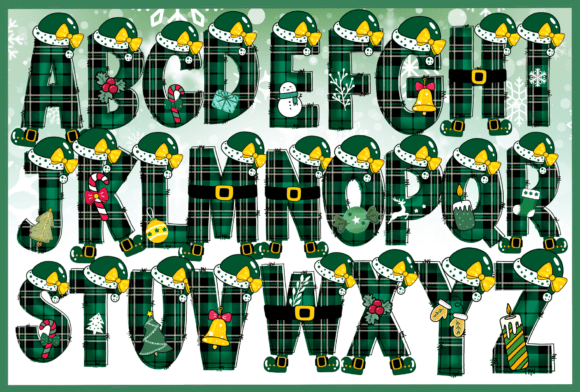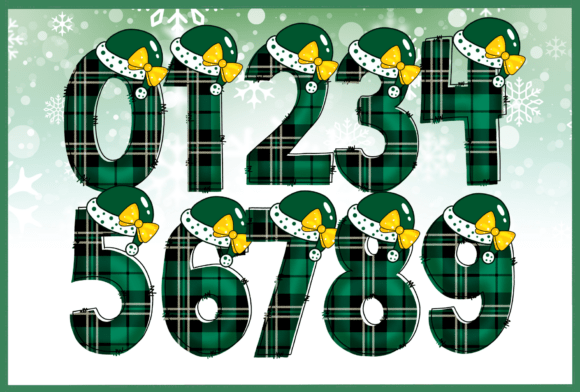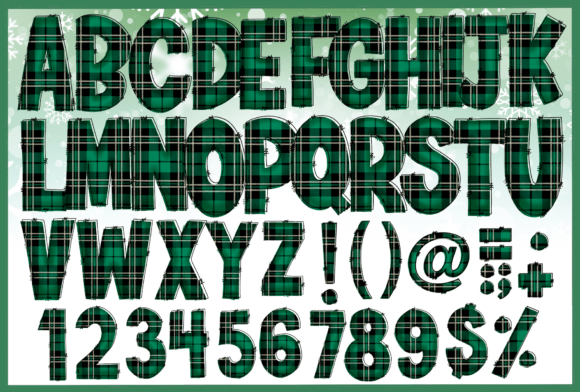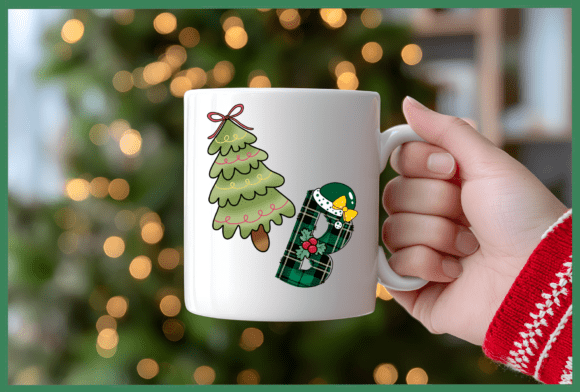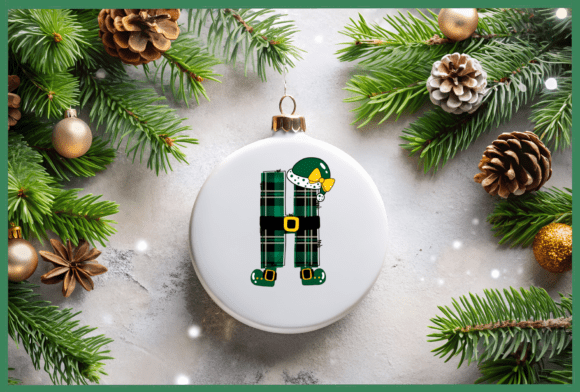
Introduction to Santa Green Font Font
Fonts play a crucial role in design, and the Santa Green Font font is a typeface that brings both character and versatility to any project. Whether you’re working on a branding project, a website, or a print design, the Santa Green Font font offers a unique style that can elevate your work.
Santa Green – Festive Plaid Decorative Font Bring the magic of the holidays into your designs with Santa Green, a vibrant plaid decorative font filled with Christmas spirit.
This playful typeface combines traditional tartan textures with cheerful festive elements like Santa hats, boots, belts, and snowy details — perfect for adding a cozy, joyful vibe to your holiday projects Each letter bursts with character and color, making it a fantastic choice for Christmas cards, invitations, social media posts, apparel, and seasonal branding.
Key Features of Santa Green Font Font
Why Choose Santa Green Font Font?
The Santa Green Font font is more than just a typeface – it’s a design tool that helps you communicate your message with style and clarity. Its unique character set and versatile design make it suitable for a wide range of applications, from elegant invitations to bold headlines.
With its carefully crafted letterforms and balanced proportions, the Santa Green Font font ensures readability and visual appeal across all mediums.
What makes Santa Green Font font special?
The Santa Green Font font stands out with its unique design, exceptional readability, and versatility across various design applications.